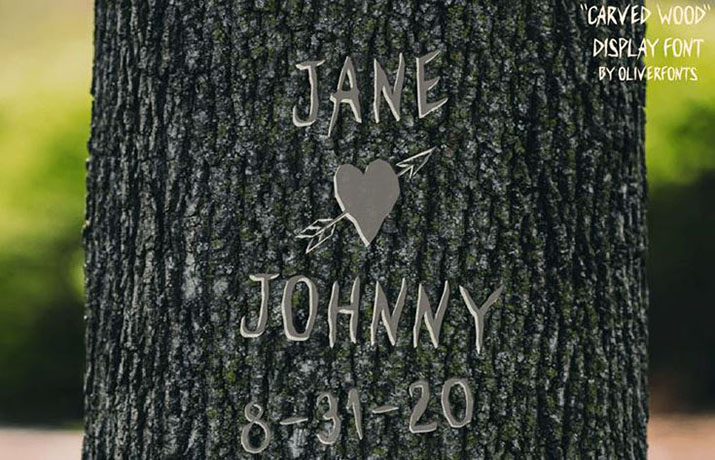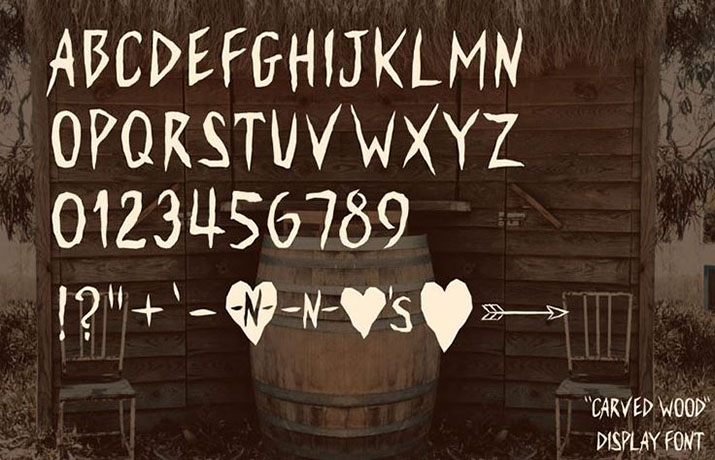
Carved Wood Font is a natural display typeface that was inspired by classy and classic art. It was designed by KEITH OLIVER and published by OLIVERFONTS.
This is a beautiful display typeface with unique alternate characters. Irregular letterforms and subtle woodgrain texture give it a unique and eye-catching look.
Its bold and rustic charm makes it an excellent choice for headlines, logos, signage, titles, packaging, letterhead, magazines, branding, headers, greeting cards, posters, and vintage-inspired posters.
- You can create book covers, game graphics, product designs, special event cards, product packaging, product designs, social media banners, advertisements, headers, titles, vintage posters, flyers, signs, banners, titles, product designs, brochures, signs, movie posters, special quotes, and much more with the help of this attention-grabbing and bold typeface.